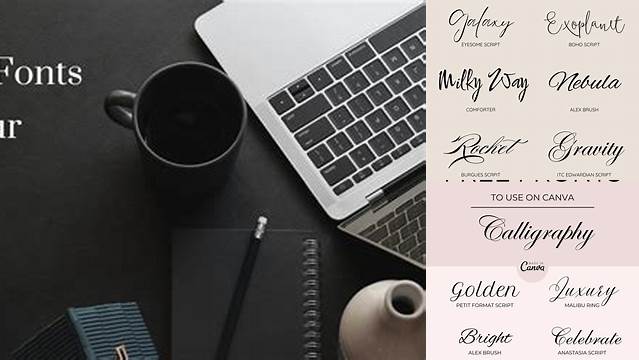
Download Free Elegant Fonts For Stunning Designs
Hey guys! Are you looking to add a touch of sophistication and class to your projects? Well, you've come to the right place! In the world of design, typography plays a crucial role in conveying the right message and creating a visual impact. And what better way to achieve this than by using elegant fonts? These fonts, with their graceful curves, stylish serifs, and overall refined aesthetic, can instantly transform your designs from ordinary to extraordinary. In this article, we'll dive into the world of elegant fonts, explore where you can find them for free, and discuss how to use them effectively in your projects. Whether you're a seasoned designer or just starting out, this guide will help you elevate your typography game and create stunning visuals.
What Makes a Font Elegant?
When we talk about elegant fonts, what exactly do we mean? It's not just about fancy swirls and elaborate details. Elegance in typography is a subtle art, a delicate balance of form and function. Elegant fonts often possess certain characteristics that set them apart from the rest. One key feature is the presence of serifs. Serifs are the small decorative strokes that extend from the ends of the main strokes of a letter. These serifs add a touch of tradition and formality, making the font feel more refined. Think of classic typefaces like Times New Roman or Garamond – these are prime examples of serif fonts that exude elegance. However, elegance isn't limited to serif fonts alone. Some sans-serif fonts, those without serifs, can also be incredibly elegant. These fonts often achieve elegance through their clean lines, balanced proportions, and overall minimalist aesthetic. Fonts like Helvetica or Futura, when used thoughtfully, can convey a sense of modern sophistication. The spacing between letters, known as kerning, also plays a crucial role in the elegance of a font. Too little spacing can make the letters feel cramped and cluttered, while too much spacing can make the words appear disjointed. An elegant font has carefully considered kerning that ensures each letter flows seamlessly into the next, creating a harmonious visual rhythm. The weight of the font, meaning how thick or thin the strokes are, also contributes to its overall elegance. Lighter weights, with their delicate lines, often feel more refined and sophisticated than heavier, bolder weights. However, it's important to choose a weight that is appropriate for the context. A very light font might look elegant but could be difficult to read in small sizes or on certain backgrounds. Ultimately, the elegance of a font is subjective and depends on the specific design context. But by understanding the key characteristics that contribute to elegance, you can make informed choices and select fonts that perfectly match your project's aesthetic. So, when you are selecting a font for your next project, think about the overall mood and message you want to convey. Do you want it to feel classic and timeless? Or modern and sophisticated? The right elegant font can help you achieve your desired effect and create a design that truly stands out.
How to Use Elegant Fonts Effectively
Okay, so you've downloaded a bunch of gorgeous elegant fonts, but now what? Knowing how to use these fonts effectively is just as important as finding them in the first place. The key is to use them strategically and in a way that enhances your overall design, rather than overwhelming it. One of the most important things to consider is readability. An elegant font might look beautiful, but if it's difficult to read, it's not serving its purpose. Avoid using overly decorative or intricate fonts for large blocks of text. Instead, reserve them for headings, titles, or short quotes where readability is less critical. For body text, opt for simpler, more legible elegant fonts, such as classic serifs or clean sans-serifs. Think about the contrast between different elements on your page. Pairing an elegant font with a contrasting font can create visual interest and hierarchy. For example, you might pair a delicate script font for headings with a strong, readable sans-serif font for body text. However, be careful not to use too many different fonts in a single design. Stick to a maximum of two or three fonts to avoid a cluttered and chaotic look. The size and spacing of your text also play a crucial role in readability and overall aesthetics. Make sure your text is large enough to read comfortably, and adjust the line height (the space between lines) and letter spacing (the space between letters) to create a balanced and harmonious look. An elegant font with tight letter spacing can feel cramped and difficult to read, while a font with too much letter spacing can feel disjointed. Pay attention to the context in which you're using the font. An elegant font that works beautifully for a wedding invitation might feel out of place on a corporate website. Consider the overall tone and message of your design and choose a font that aligns with it. In some cases, less is more. An elegant font can make a statement on its own, so you don't always need to add a lot of other decorative elements. Sometimes, a simple, clean design with a well-chosen elegant font is the most effective approach. Experiment with different font combinations and styles to find what works best for your project. Don't be afraid to try something new and break the rules, but always prioritize readability and overall aesthetics. Remember, the goal is to use elegant fonts to enhance your design, not to distract from it. By following these tips, you can use elegant fonts effectively and create visuals that are both beautiful and functional. So, go ahead and unleash your creativity – the world of elegant typography awaits!
Examples of Popular Elegant Fonts
To give you a better idea of what's out there, let's take a look at some popular and widely-used elegant fonts. These fonts have stood the test of time and are known for their versatility, readability, and overall refined aesthetic. Understanding these fonts can help you in selecting the best elegant fonts for your projects. One of the most classic and elegant serif fonts is Garamond. Garamond has been around since the 16th century and is known for its graceful curves, delicate serifs, and overall timeless appeal. It's a great choice for books, magazines, and any project that needs a touch of traditional elegance. Another iconic serif font is Times New Roman. Times New Roman was designed for The Times newspaper in the 1930s and is known for its readability and versatility. It's a solid choice for body text and can also be used effectively for headings and titles. Bodoni is a bold and dramatic serif font with strong contrasts between thick and thin strokes. It has a sophisticated and modern feel and is often used in fashion magazines and advertising. Didot is another high-contrast serif font that is similar to Bodoni but has a slightly more delicate and refined appearance. It's a popular choice for luxury brands and high-end publications. Moving on to sans-serif fonts, Helvetica is a classic and widely-used typeface known for its clean lines, simplicity, and neutrality. While it might not be the first font that comes to mind when you think of elegance, Helvetica can be incredibly elegant when used thoughtfully in the right context. Futura is another popular sans-serif font with a geometric design and a modern, sophisticated feel. It's a great choice for minimalist designs and projects that need a touch of contemporary elegance. Montserrat is a more recent addition to the world of elegant sans-serif fonts. It has a clean and modern design with a slightly rounded feel, making it a versatile choice for a variety of projects. In addition to these classic typefaces, there are also many beautiful script fonts that can add a touch of elegance to your designs. Script fonts mimic the look of handwriting and often have flowing, graceful letterforms. However, it's important to use script fonts sparingly, as they can be difficult to read in large blocks of text. Some popular script fonts include Brush Script, Edwardian Script, and Pacifico. When choosing an elegant font, it's helpful to consider the specific characteristics of each typeface and how it will fit into your overall design. Experiment with different fonts and font combinations to find what works best for your project. And don't be afraid to step outside of your comfort zone and try something new. The world of typography is vast and exciting, and there's always something new to discover!
Tips for Pairing Elegant Fonts
Font pairing, guys, is like matchmaking for your designs! It's all about finding the perfect partners that complement each other and create a harmonious visual experience. When it comes to pairing elegant fonts, there are a few key principles to keep in mind. First and foremost, consider contrast. Pairing a highly decorative, elegant font with a simple, understated font is a classic way to create visual interest and hierarchy. For example, you might pair a flowing script font for headings with a clean sans-serif font for body text. This creates a clear distinction between the different elements on your page and makes your design more readable. Another important tip is to think about the mood and tone of your fonts. Do the fonts you've chosen convey a similar feeling? If one font feels formal and traditional while the other feels playful and modern, they might not be the best match. Try to choose fonts that have a similar personality or aesthetic. You can also pair fonts from the same font family. Font families often include a variety of weights and styles, such as regular, bold, italic, and condensed. Pairing different styles within the same family can create a cohesive and professional look. For example, you might use a bold weight for headings and a regular weight for body text. When pairing fonts, it's important to avoid using fonts that are too similar. If two fonts are too much alike, they can clash and create a confusing visual effect. Look for fonts that have distinct differences in their letterforms, weight, or style. As a general rule, it's best to stick to a maximum of two or three fonts in a single design. Using too many different fonts can make your design feel cluttered and overwhelming. Choose your fonts carefully and use them consistently throughout your project. There are also many online tools and resources that can help you with font pairing. Websites like FontPair and Typewolf offer curated font combinations and inspiration for your designs. These resources can be a great starting point if you're feeling stuck or unsure about where to begin. Ultimately, the best way to learn about font pairing is to experiment and practice. Try different combinations and see what works best for your specific design. Don't be afraid to break the rules and try something unexpected, but always prioritize readability and overall aesthetics. Remember, the goal is to create a visually appealing and effective design that communicates your message clearly and elegantly. So, go ahead and play around with different fonts – you might just discover the perfect pairing for your next project!
So, there you have it! A comprehensive guide to the world of elegant fonts. We've explored what makes a font elegant, where to find free elegant fonts, how to use them effectively, and even some tips for pairing them. Elegant fonts are a powerful tool for designers, and they can instantly elevate your projects and create a lasting impression. By understanding the principles of elegant typography and using the resources available to you, you can create stunning visuals that are both beautiful and functional. Remember, typography is an art form, and it takes practice to master. Don't be afraid to experiment, try new things, and develop your own unique style. The world of elegant fonts is vast and exciting, and there's always something new to discover. So, go forth and create, and let your designs speak volumes with the power of elegant typography! And remember, guys, have fun with it! Design is all about expressing your creativity and bringing your ideas to life. With the right elegant fonts, you can make your visions a reality and create designs that truly shine.